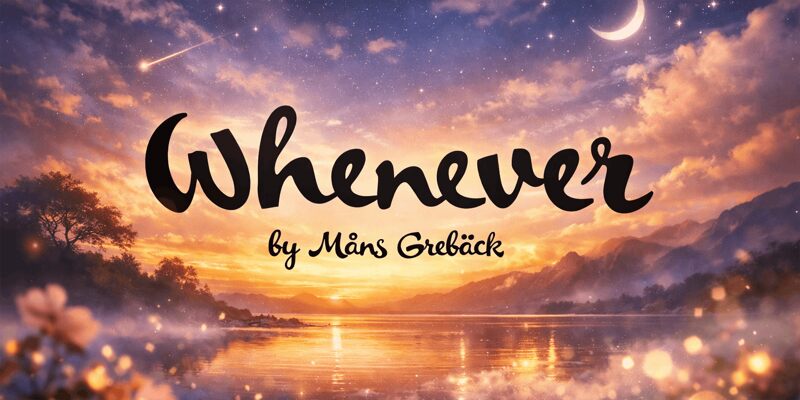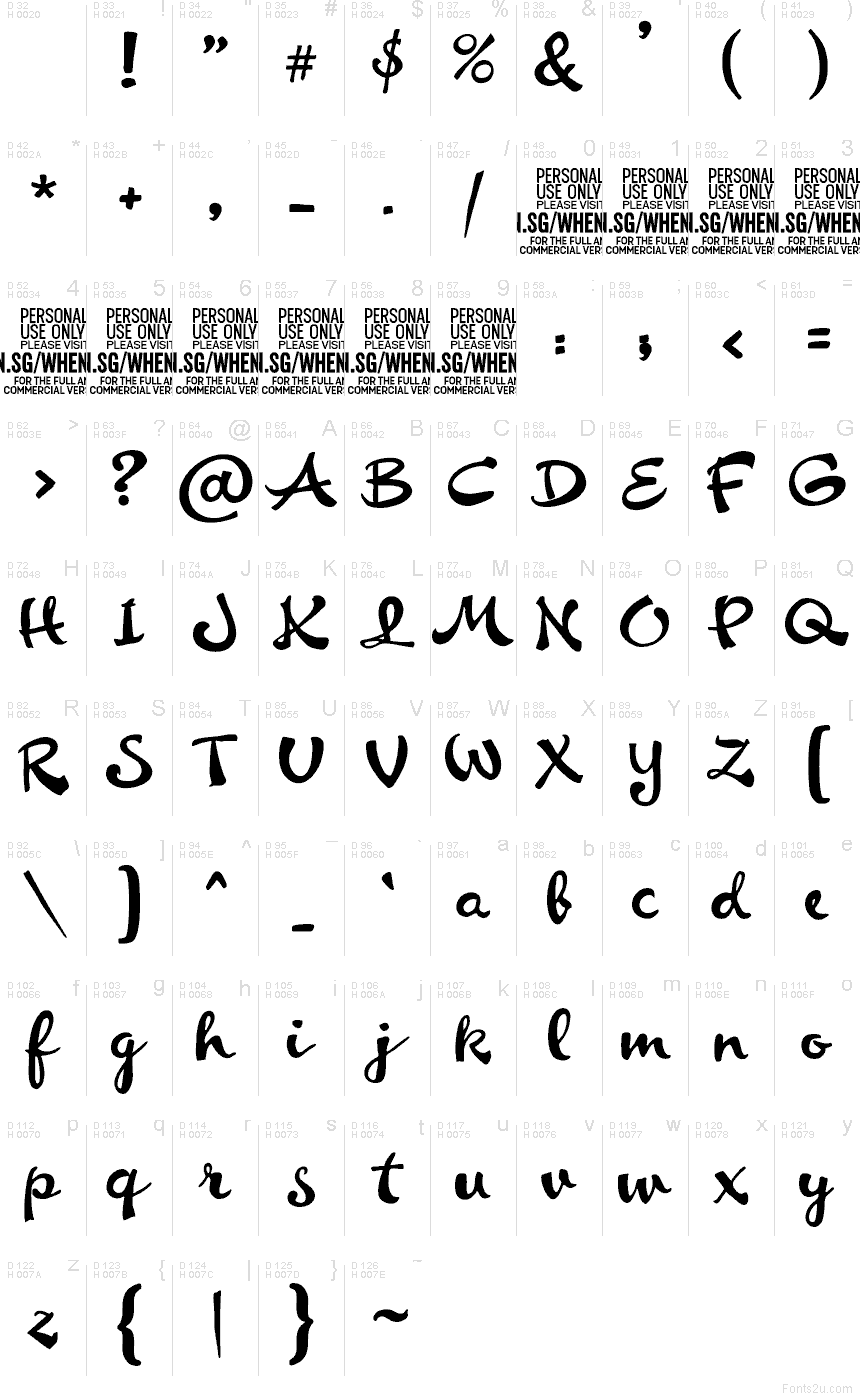
Whenever by Mans Greback AB is a free brush script font with a big, rolling swing and thick painted strokes. The letters lean into a hand-lettered rhythm, mixing broad curves with tight looped joins so the word shapes feel casual, bold, and a little retro without turning fussy.
It fits poster headlines, packaging, cafe branding, greeting cards, and social media title lines where you want the writing to feel made by hand. As a free font, Whenever works best in short display settings, from cover lines to logo-style wordmarks, because those heavy brush shapes and looping connections give even a few letters plenty of movement.